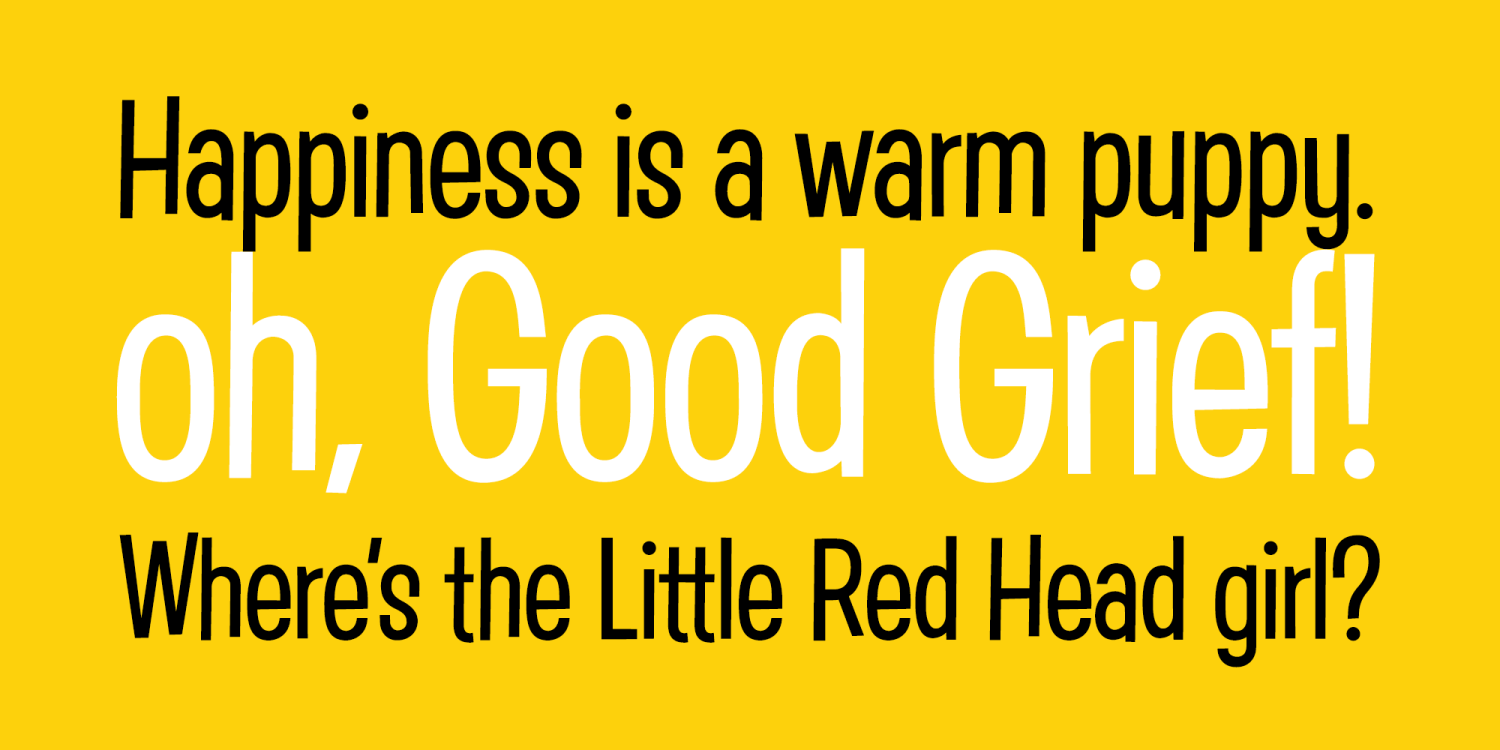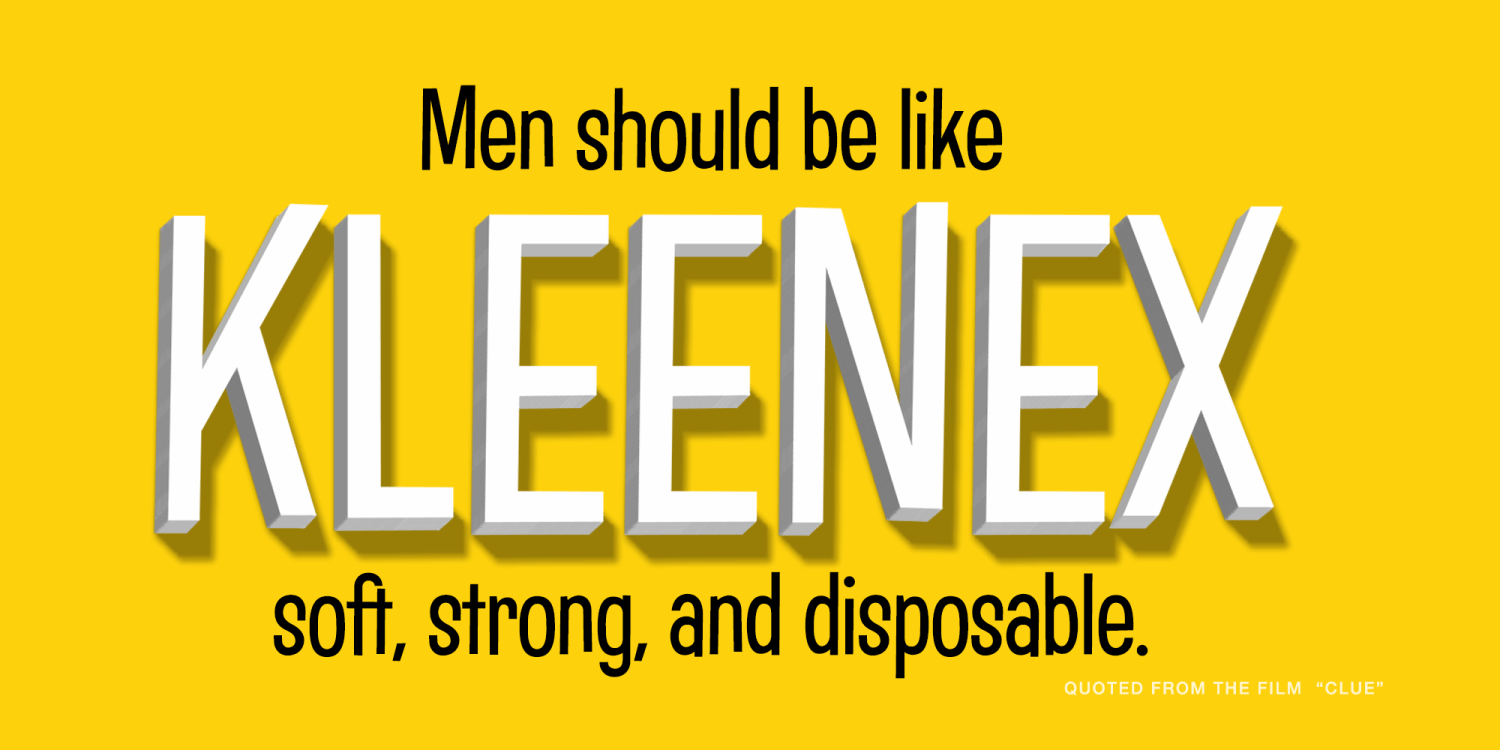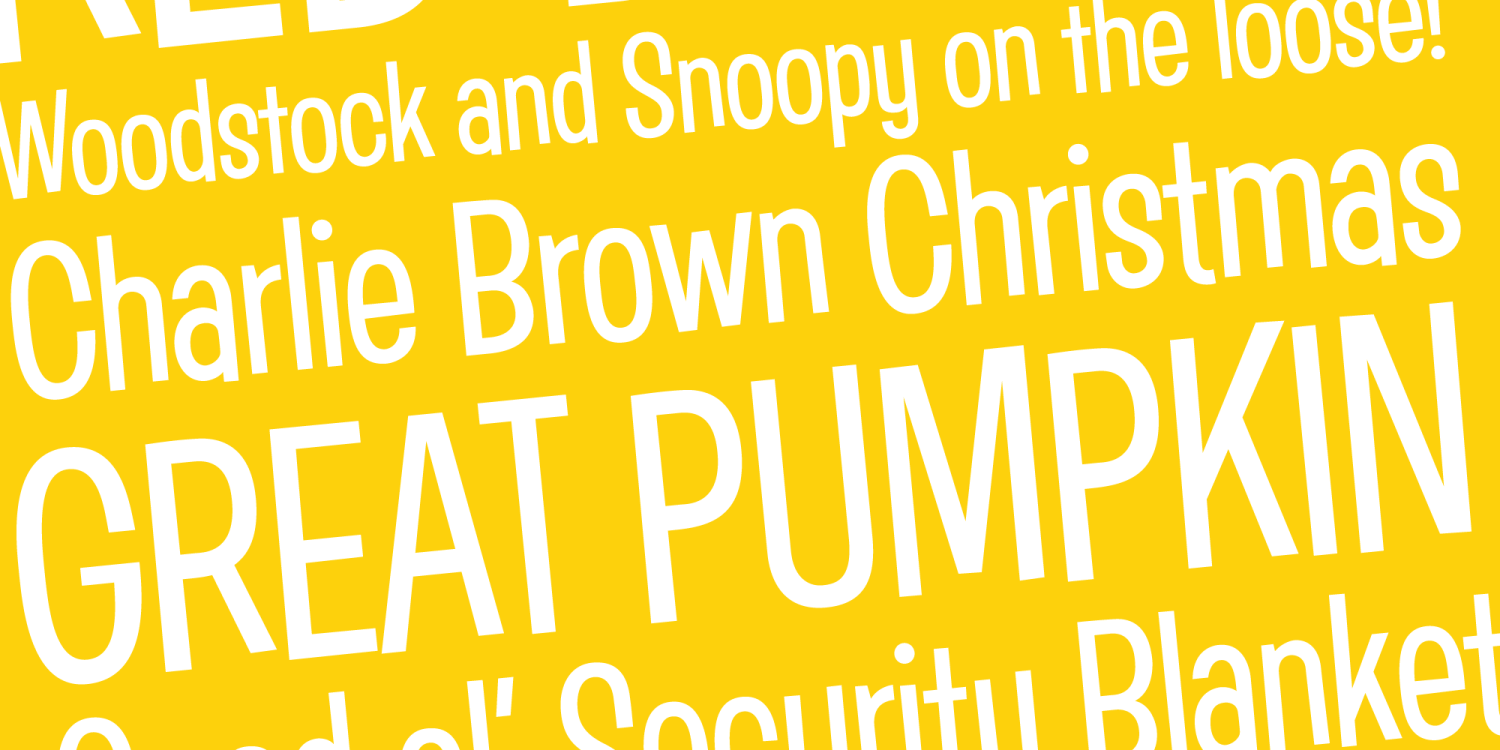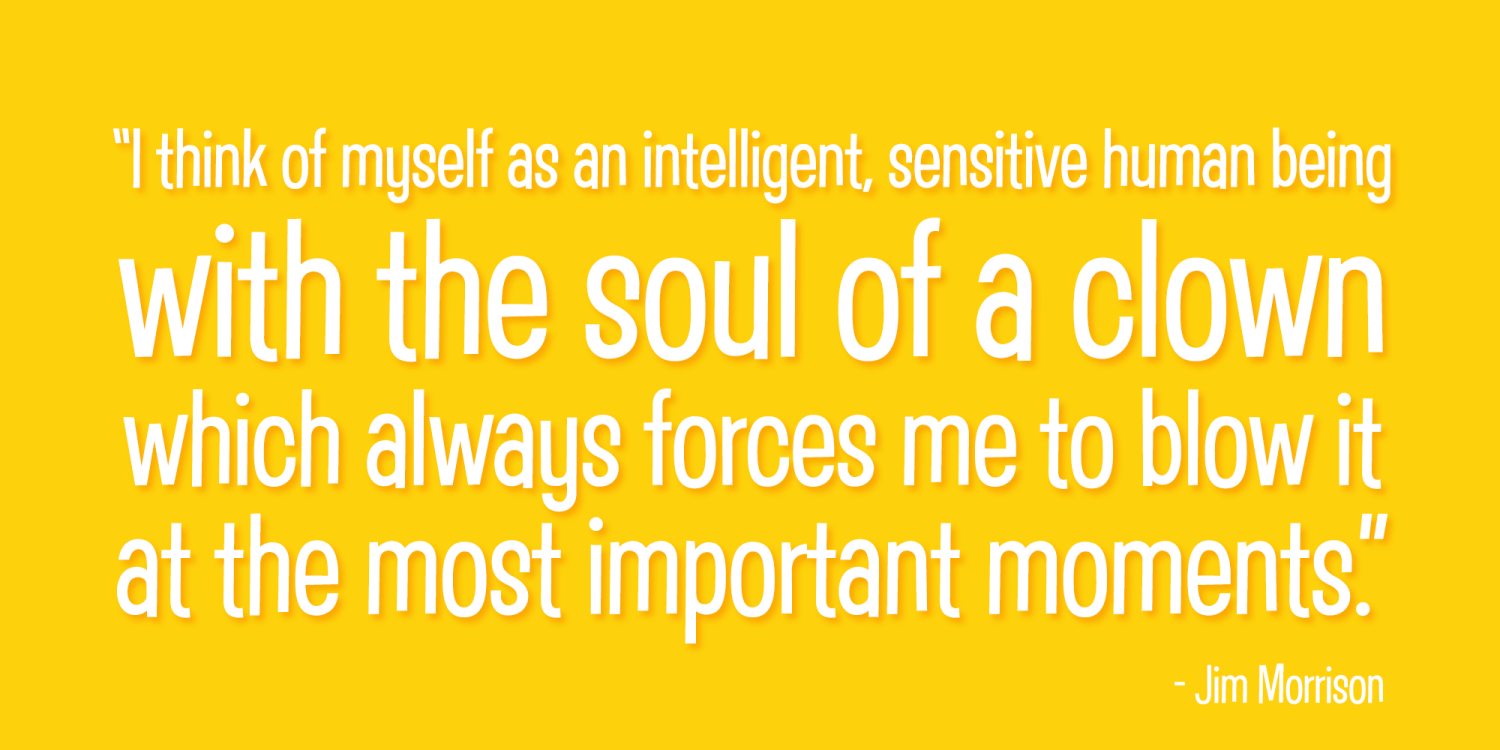
Good Grief
An ever so slightly off kilter sans-serif, Good Grief started as a digitization of a film typeface called Carmel by LetterGraphics. From there, this fun and friendly typeface was taken from its limited character set and fleshed out to a fully functional typeface.
With the legibility of a text typeface, yet the personality of a display type, Good Grief - why haven't you gotten this fantastic font yet?